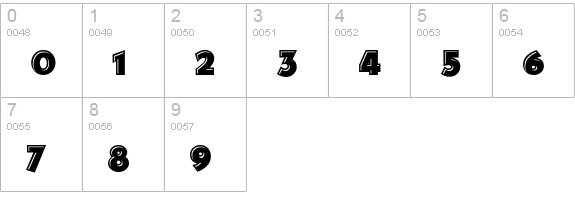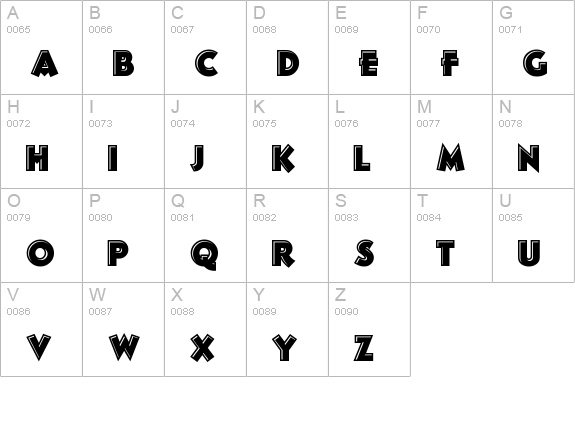
Franken's-SteinA Font Details
Franken's-SteinA is a bold and quirky font that combines elements of horror and whimsy. With its jagged edges and uneven lines, this font exudes a sense of mystery and playfulness. Perfect for Halloween-themed projects, posters, and branding materials, Franken's-SteinA adds a touch of spookiness to any design. The best part is that Franken's-SteinA is available for free download at FontsMarket.com. Whether you're a graphic designer looking to add a unique flair to your creations or a hobbyist seeking creative inspiration, this font is a must-have addition to your collection. Download Franken's-SteinA today and unleash your creativity with this captivating typeface.